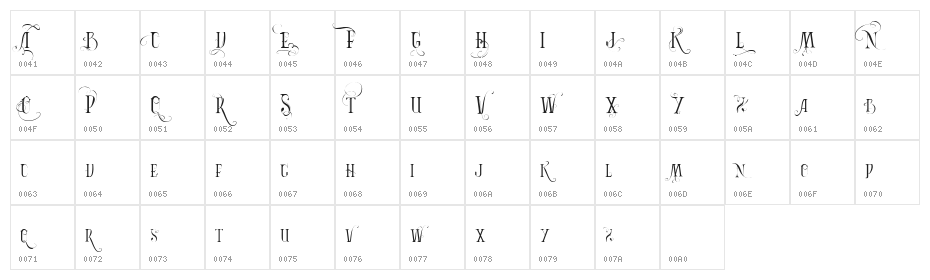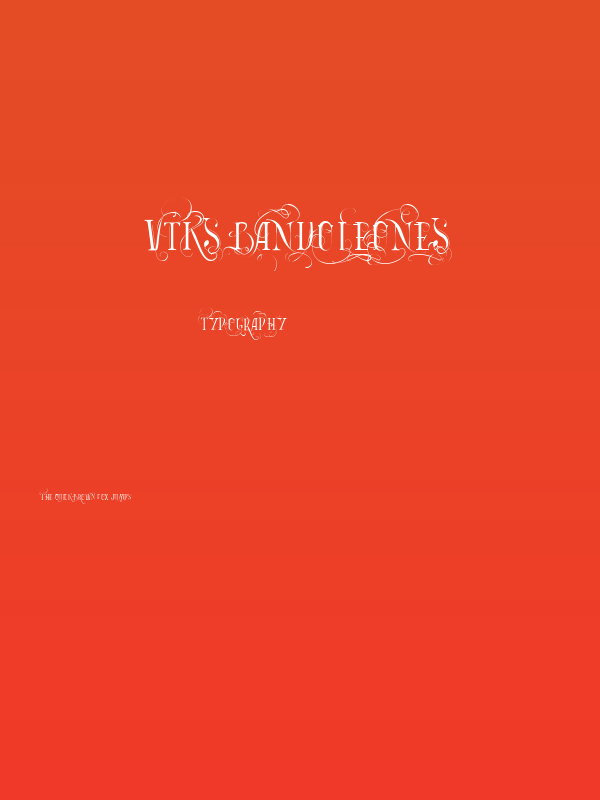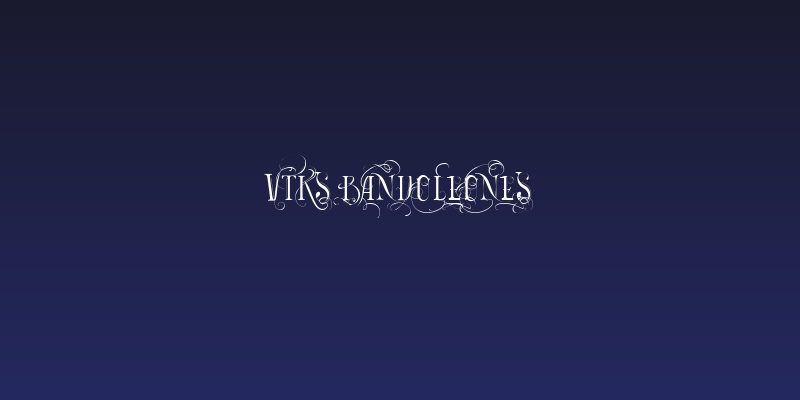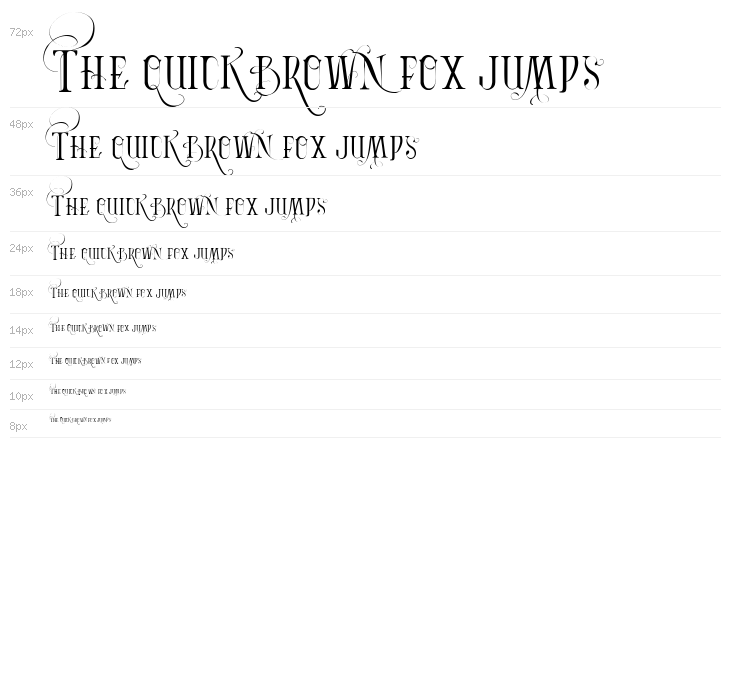
Vtks Bandoleones Font
Vtks Bandoleones Description
This font features an elaborate and decorative style, characterized by its intricate swirls and flourishes that extend from the main strokes of each letter. The uppercase letters are particularly ornate, with dramatic extensions that create a sense of elegance and sophistication. The lowercase letters maintain a similar style but with slightly less embellishment, allowing for readability while still retaining the font's unique flair. The numerals and special characters are designed to match the overall aesthetic, ensuring a cohesive look across all text elements. This font's high contrast between thick and thin strokes adds to its dramatic appearance, making it ideal for eye-catching designs.